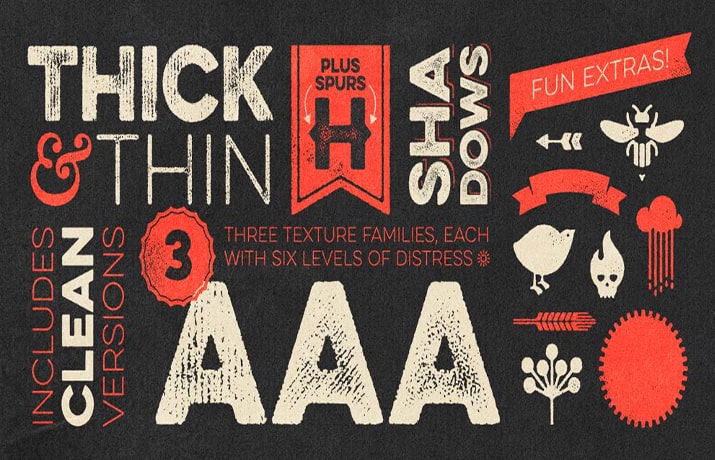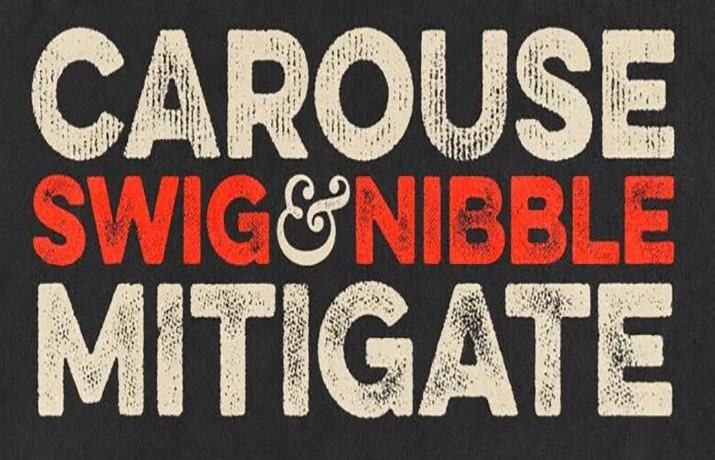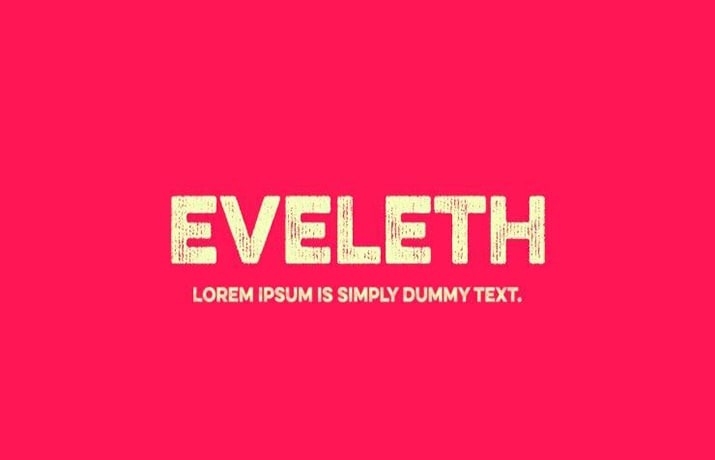
Hello Everyone! Today we are here to introduce a decorative typeface. Introducing Eveleth Font! An elegant font family for a printing-related approach.
It was designed in 2014 by a designer named Ryan Martinson and published by Yellow Design Studios, which has a great reputation for creating many other typefaces.
The designer has spent a lot of time creating this typeface and has designed it with great care which is why it is the most versatile font compared to some other typefaces.
| Font Name: | Eveleth Font Family |
| Style: | Display, Decorative, Typeface |
| Font Designer: | Ryan Martinson |
This typeface is perfect for many different projects like designing logos, branding, official cards, invitations and wedding cards, poster advertising, book covers, print items, magazine covers, etc. It is also a good idea to use it for product packaging.
It has available in four styles Thin, Regular, Dot Regular, and Bold. Each font weight contains an interesting set of characters including all case letters, shapes, updated icons, and many special characters.